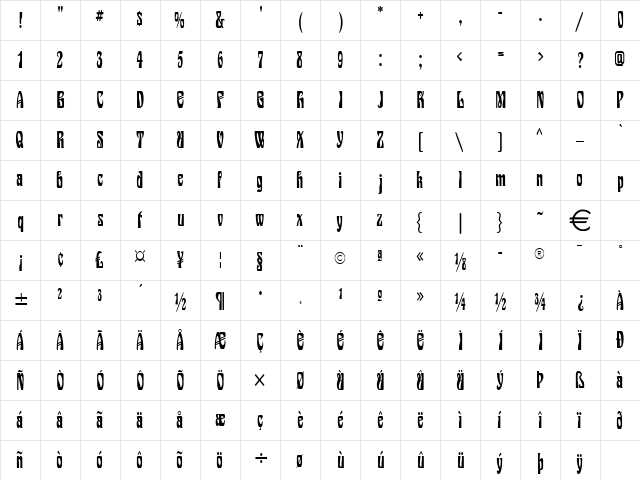
EpicCondensed Normal
Design Context for EpicCondensed Typeface
EpicCondensed is a composed and adaptable typeface that performs quietly and consistently across a wide range of design contexts. The condensed width makes it efficient for tight spaces without sacrificing legibility.
Pro Tip: Pair EpicCondensed with a font of contrasting weight or personality to build a more expressive typographic hierarchy.